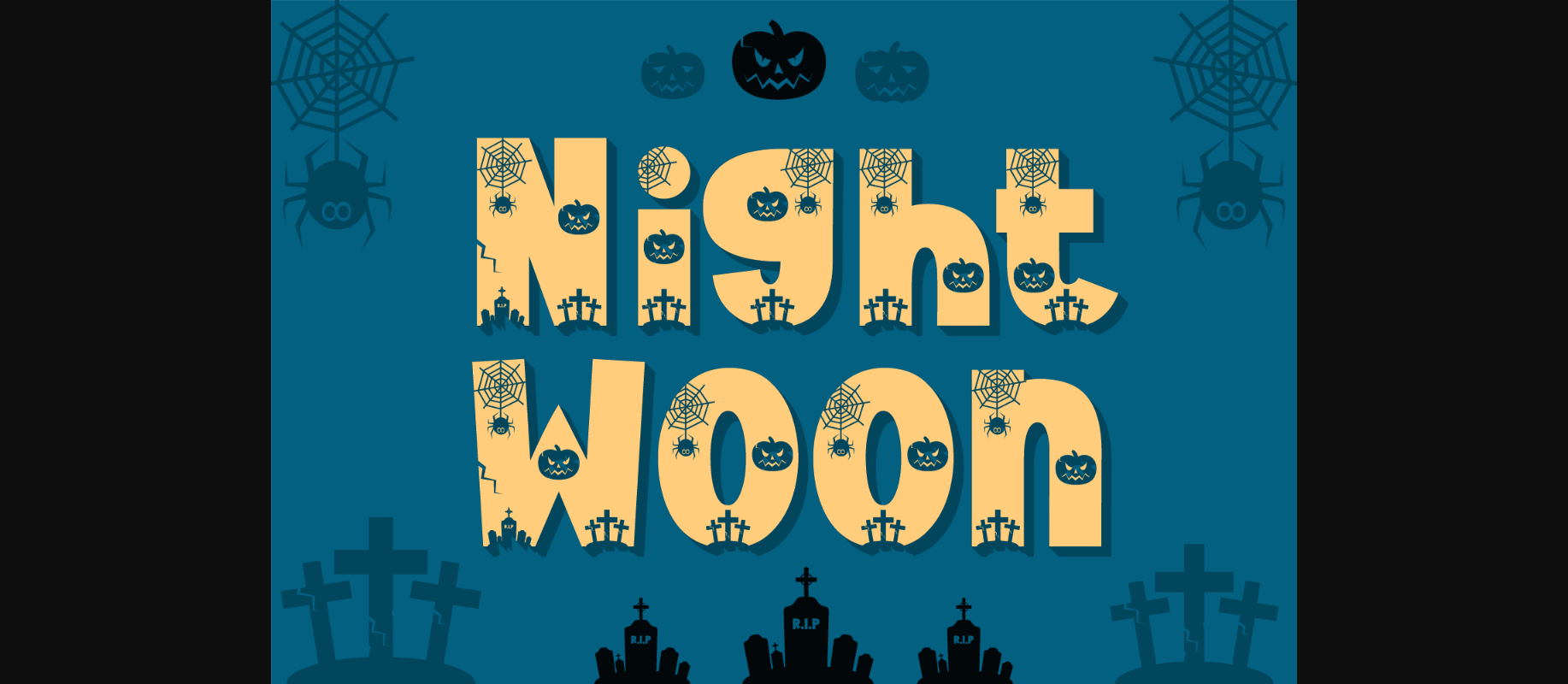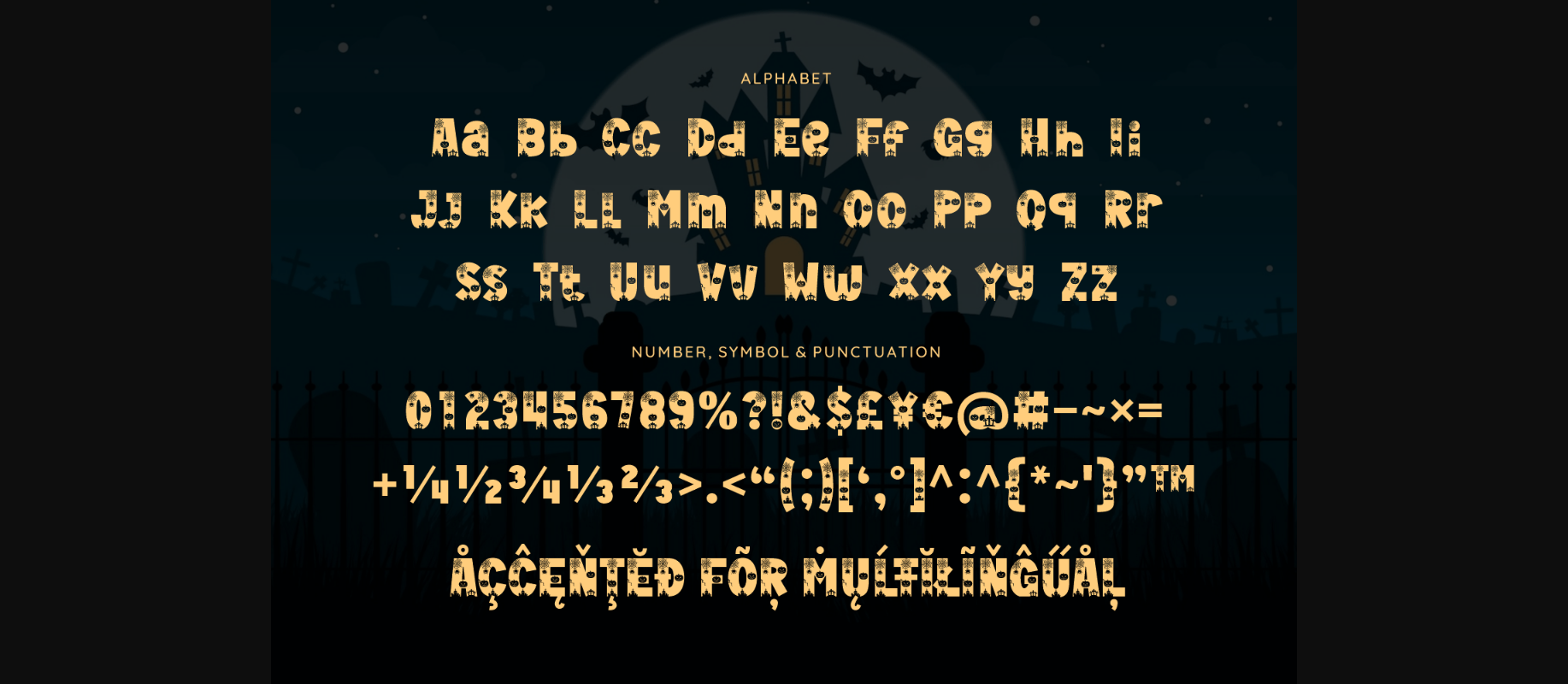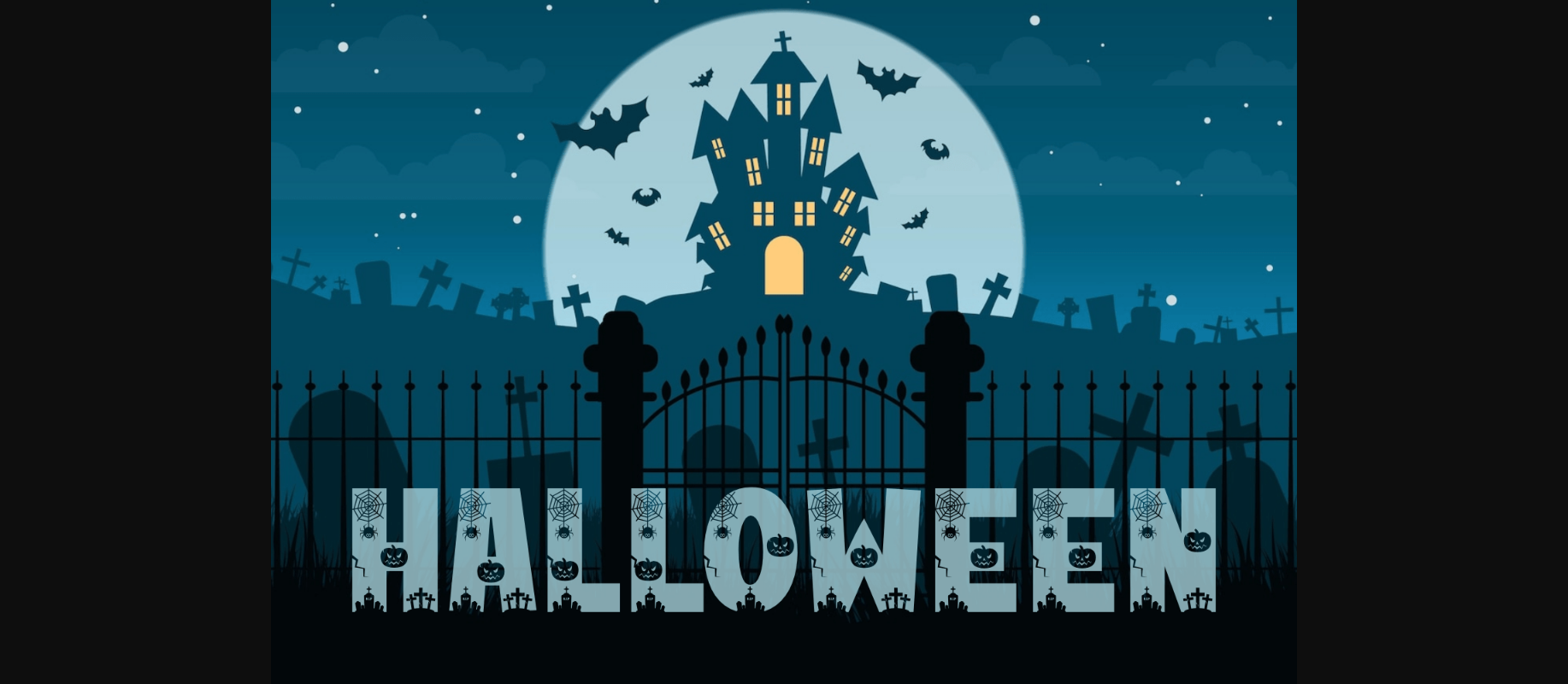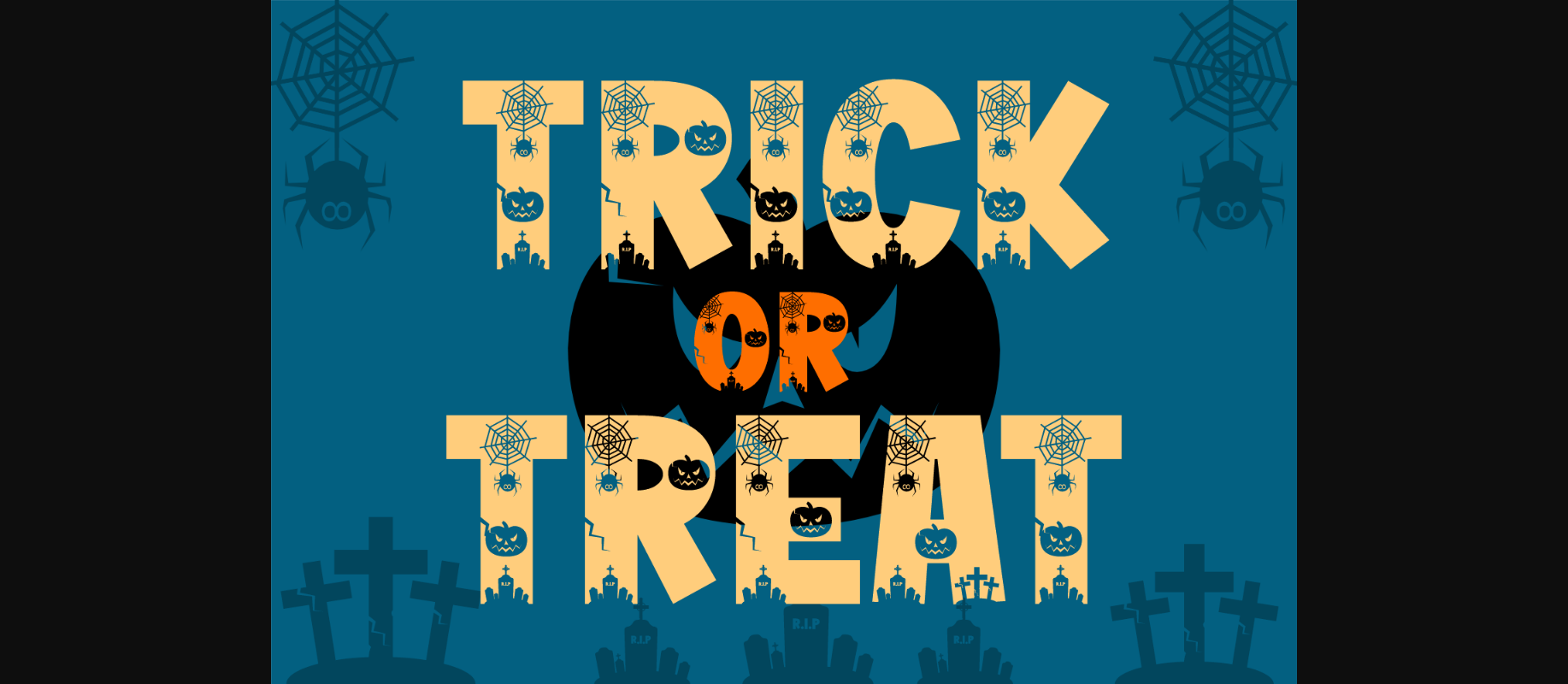
About Night Woon Font
Night Woon is a spooky and playful decorative font. It will make the perfect combination for any Halloween-related projects! Use it for online games, stationery, school supplies font, poster, movie title, youtube covers, thumbnails, social media page covers, and many more.